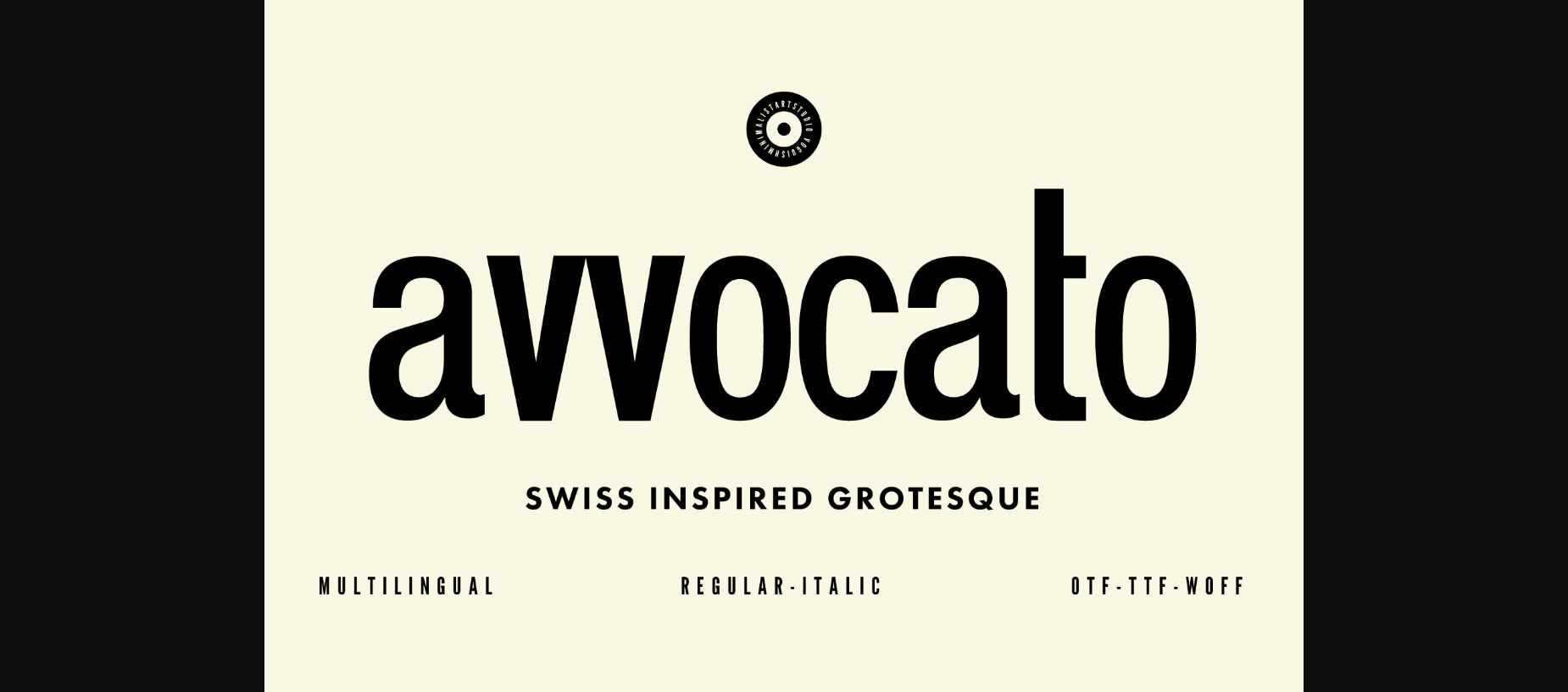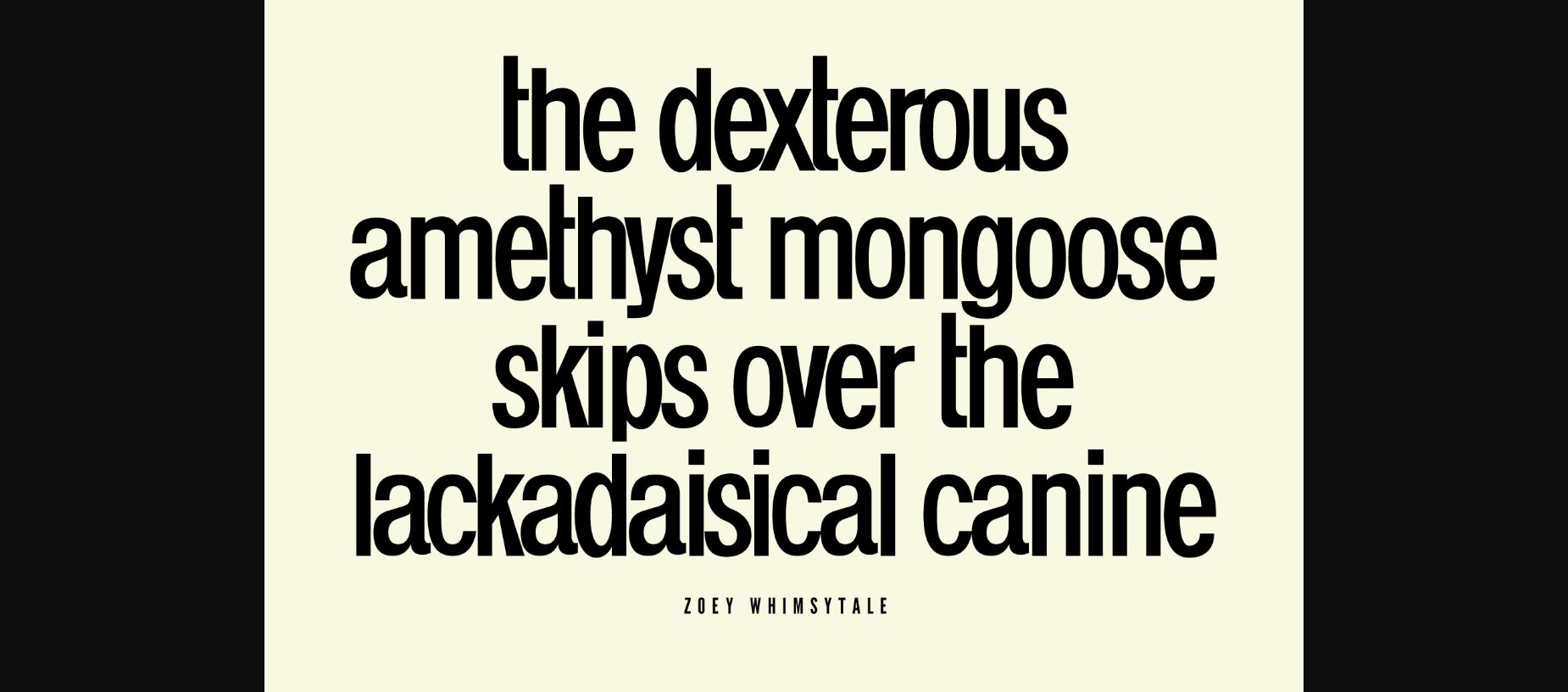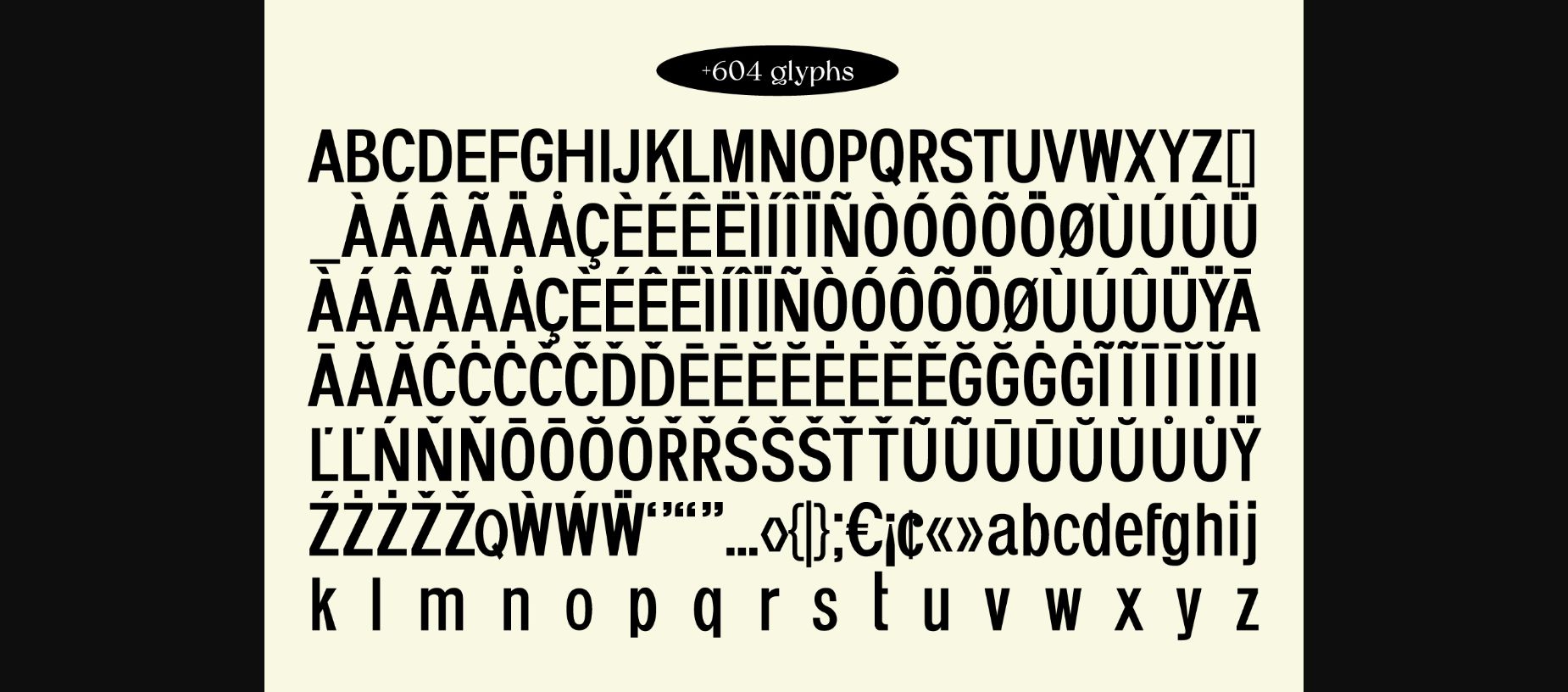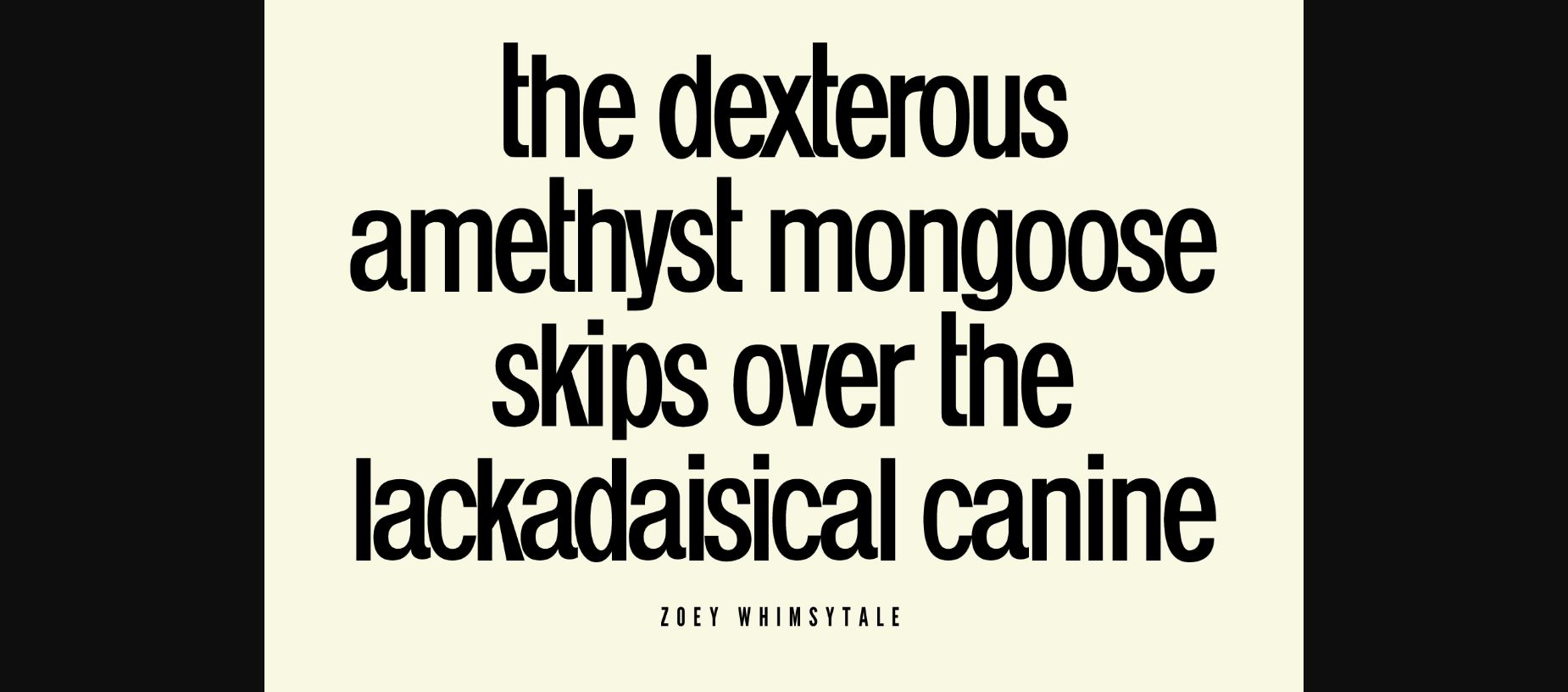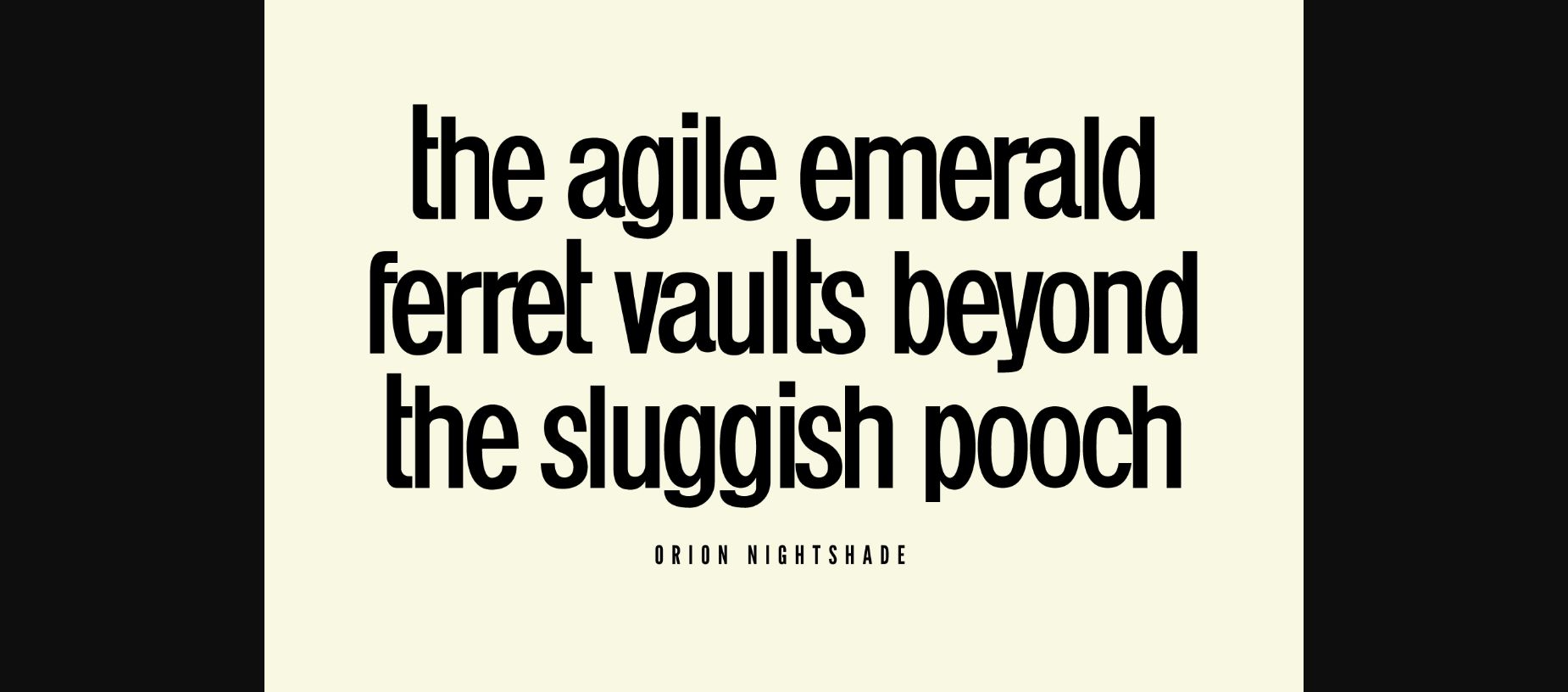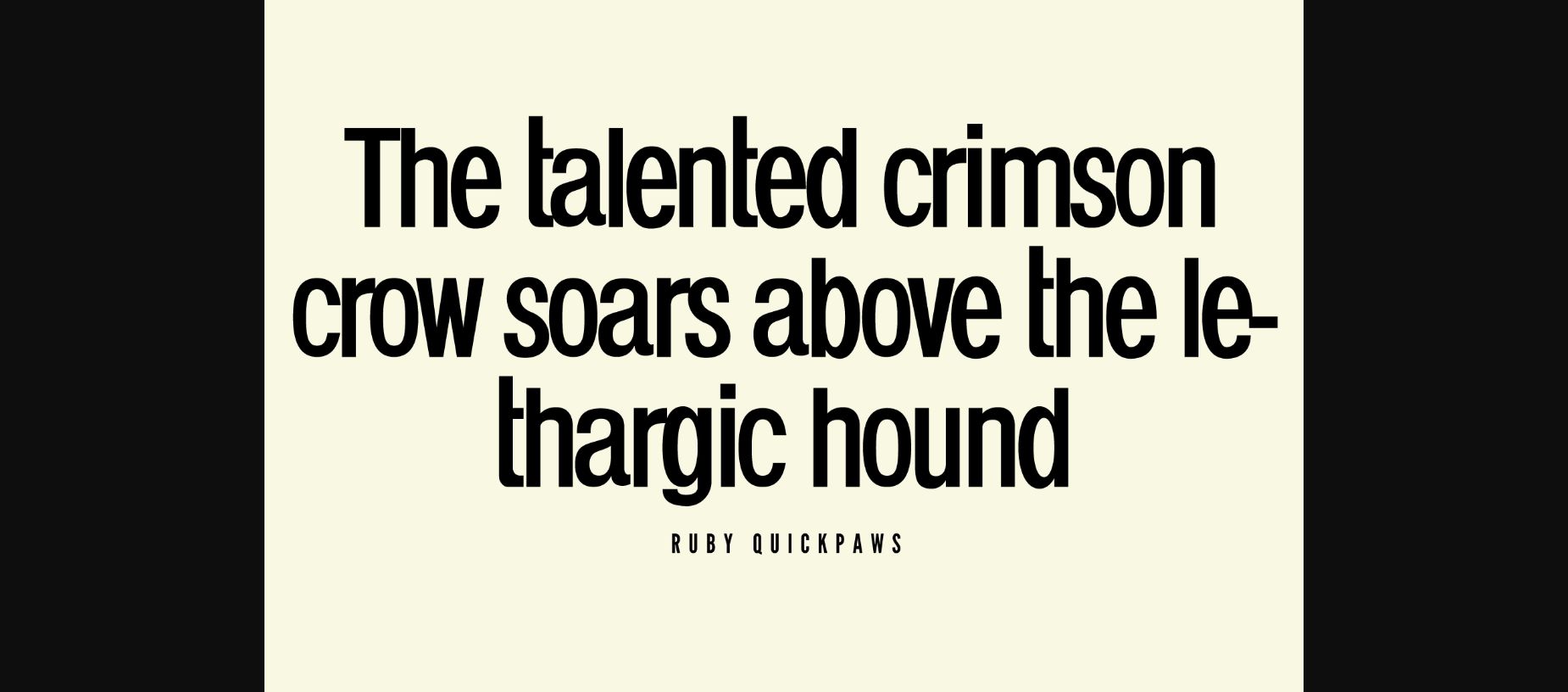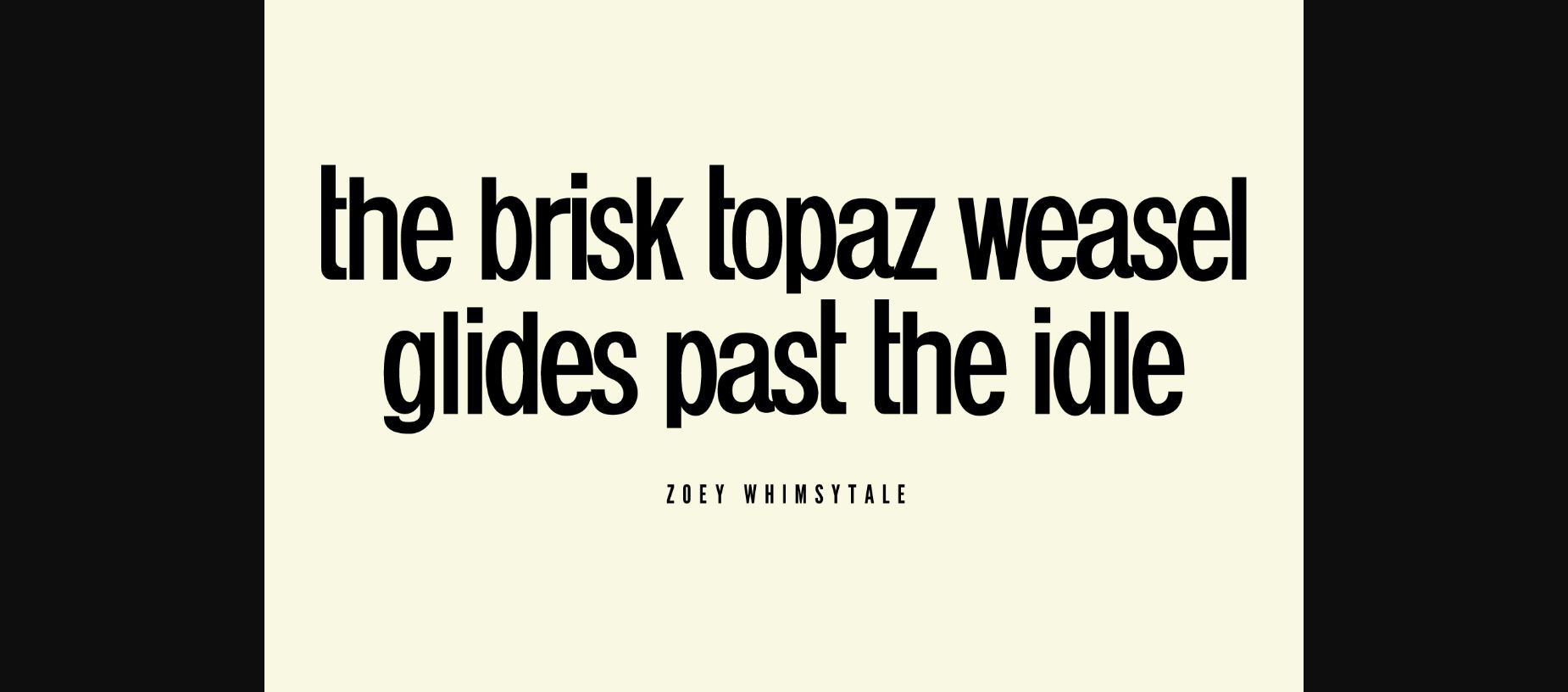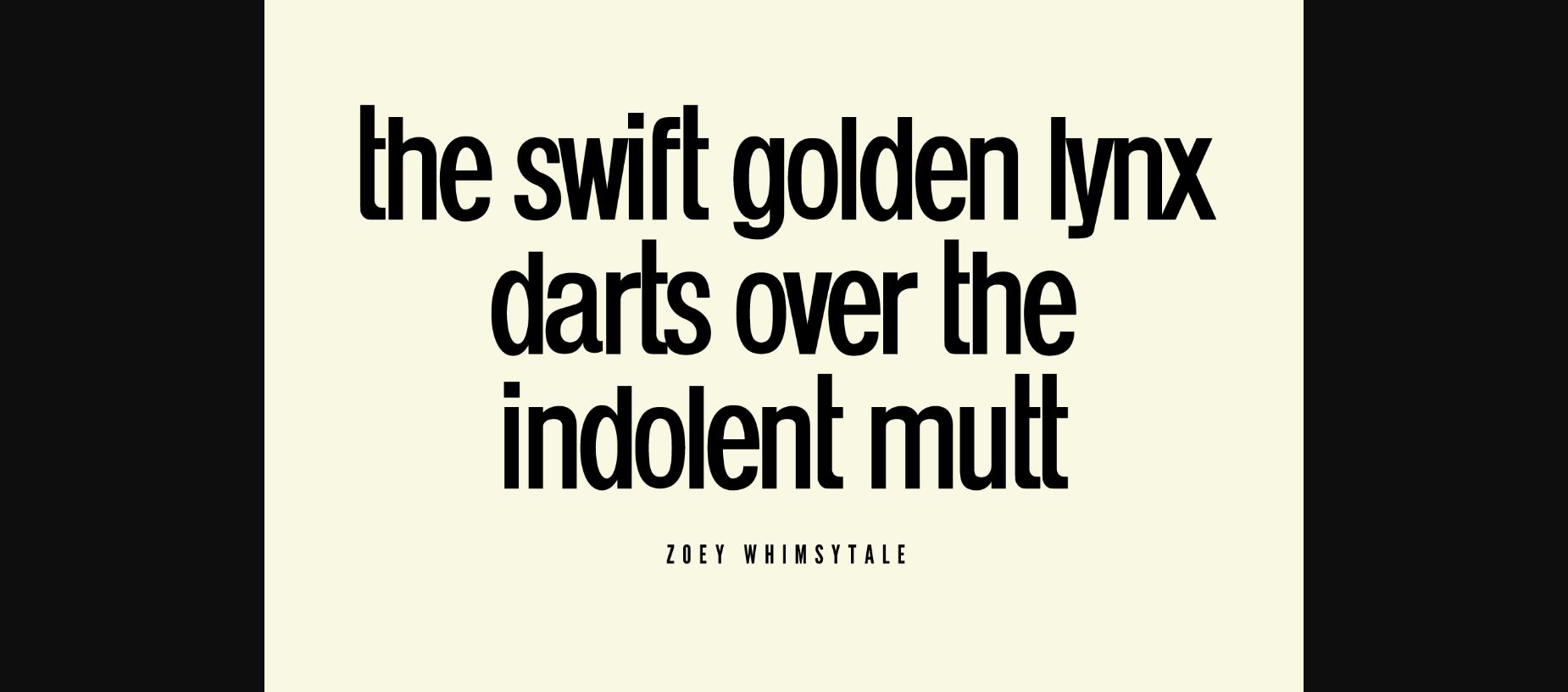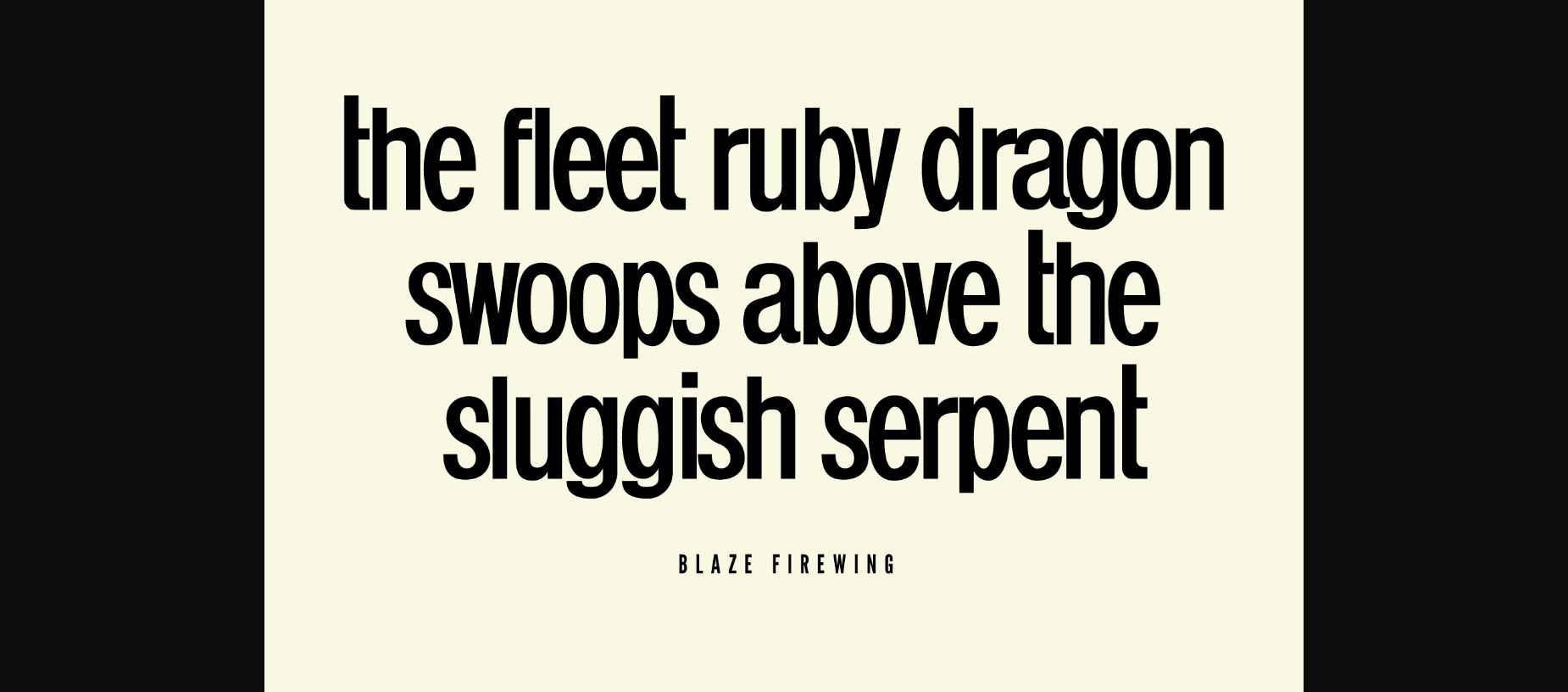
Avvocato Font
About Avvocato Font
Introducing Avvocato: Where Swiss Precision Meets Minimalist Chic.
Elevate your design projects with Avvocato, a sleek and refined grotesque sans serif typeface that draws inspiration from the iconic Swiss design ethos. Crafted with a meticulous attention to detail, Avvocato seamlessly blends geometric simplicity with timeless elegance.
Designed to captivate, Avvocato is the embodiment of clean lines and balanced proportions. Its versatile nature ensures a harmonious fit across a range of applications, from branding and editorial design to web interfaces and beyond. With its minimalistic charm, Avvocato brings a sense of modernity while paying homage to the classic Swiss typography that has stood the test of time.
Avvocato’s carefully crafted characters exude professionalism and sophistication, making it an ideal choice for conveying a sense of reliability and contemporary finesse. Whether you’re crafting a corporate identity, designing a cutting-edge website, or curating a captivating editorial layout, Avvocato’s diverse weights and styles offer endless creative possibilities.
Embrace the essence of Swiss design with Avvocato – a typeface that marries the precision of geometry with the allure of minimalism. Elevate your projects to new heights with this versatile and captivating sans serif font that stands as a testament to the power of simplicity. Discover Avvocato today and redefine the way you communicate through typography.